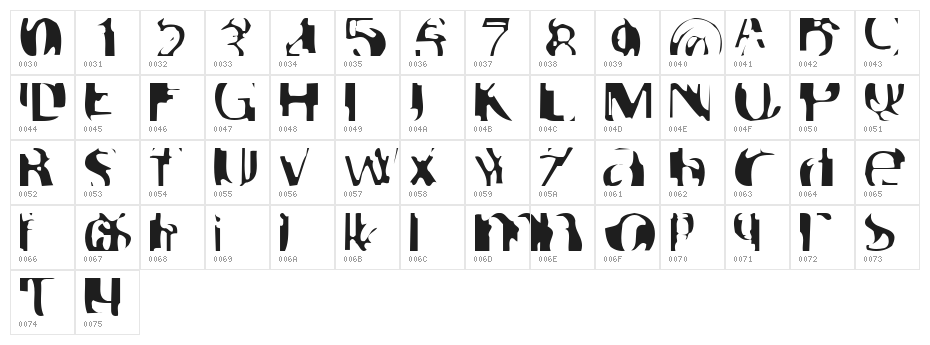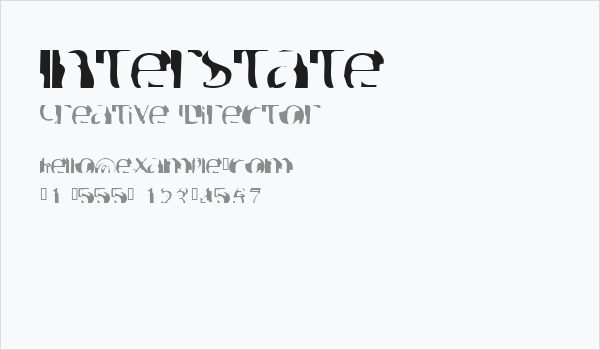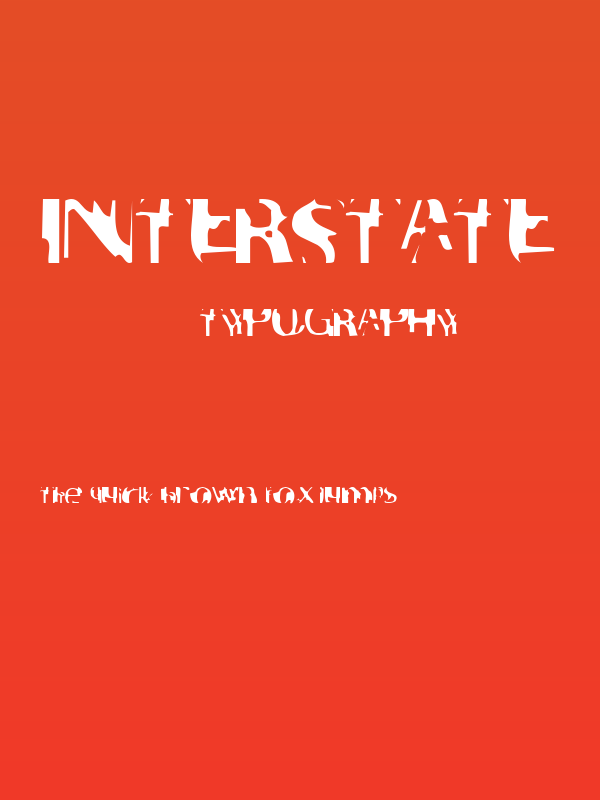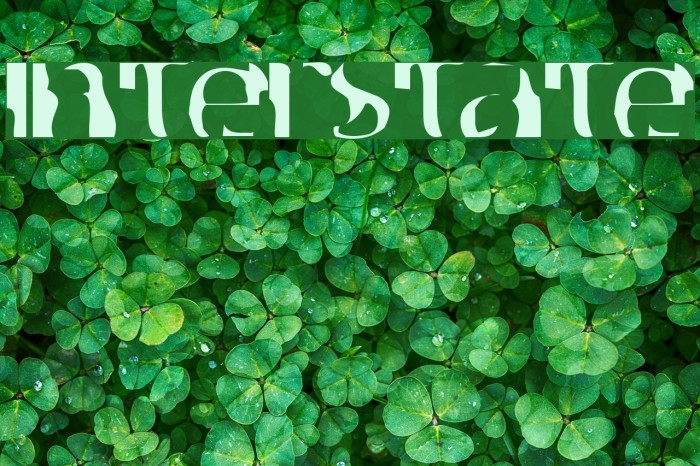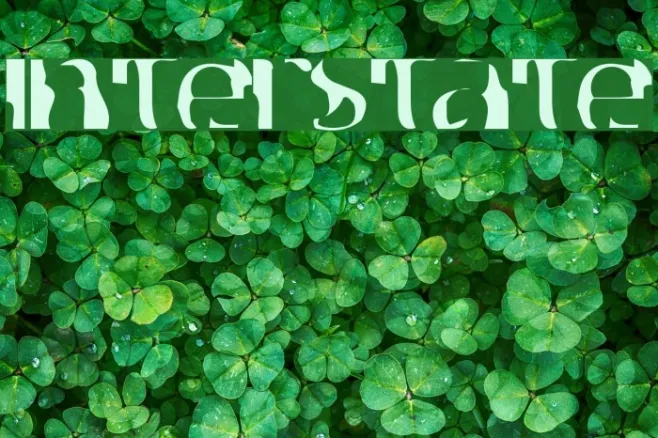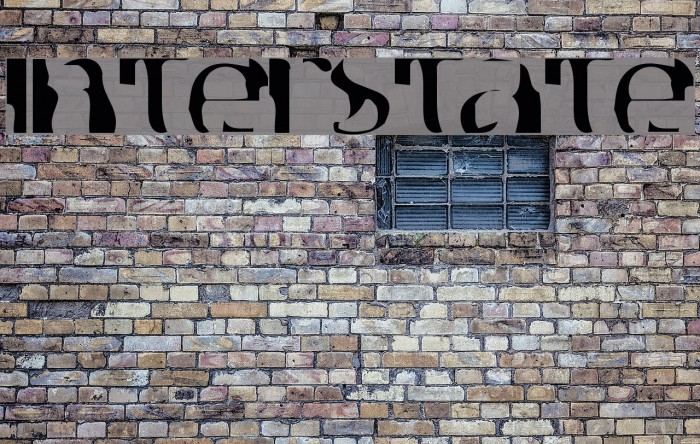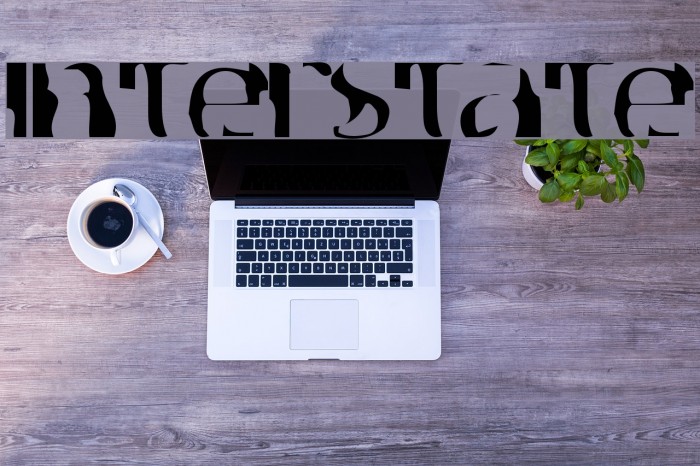
Interstate Font
Interstate Description
This font features a highly decorative and abstract style, with each character appearing as if it has been partially obscured or fragmented. The letters are bold and have a unique artistic flair, making them stand out with their unconventional shapes. The design incorporates a mix of sharp angles and smooth curves, creating a dynamic and visually intriguing appearance. The font's distinctive look is achieved through its irregular and broken forms, which give it a modern and avant-garde feel. This font is not suitable for body text due to its complexity but can be effectively used in creative projects where a bold statement is needed.
| Overall Style | Modern, Avant-garde |
| Use Case | Headlines, Logos, Artistic projects |
| Proposed Projects | Ideal for artistic posters, album covers, avant-garde branding, and experimental design projects. |